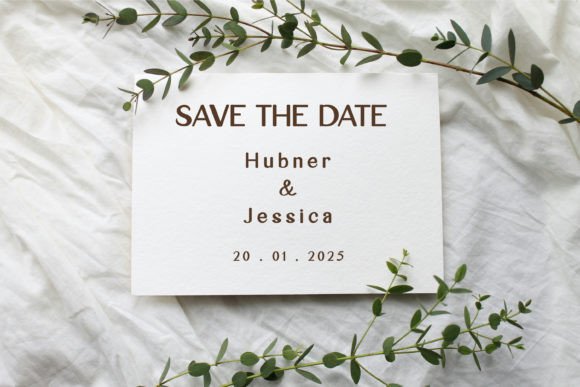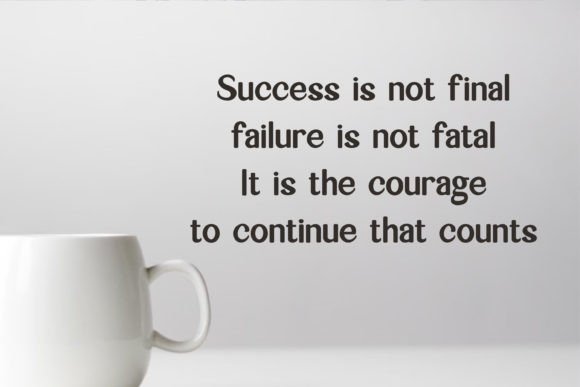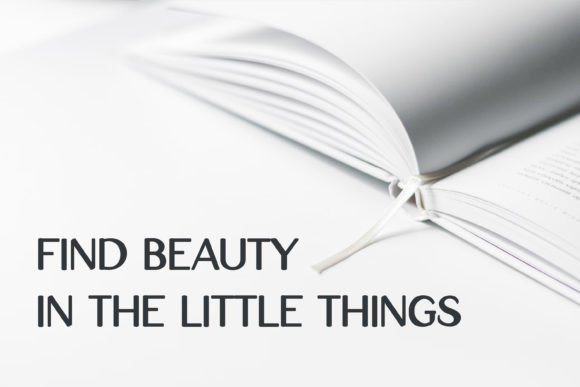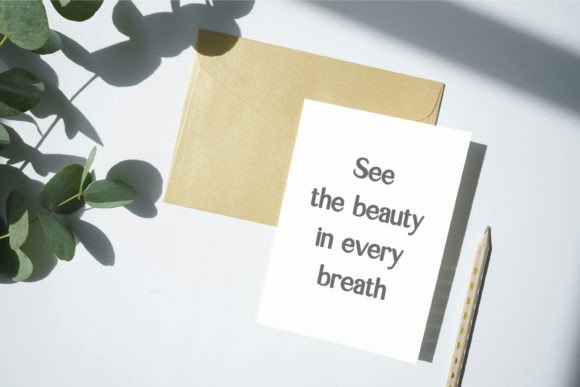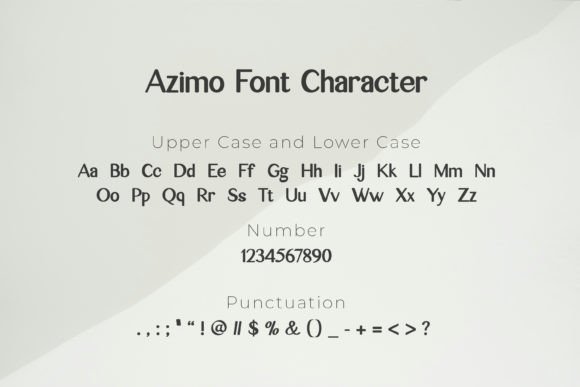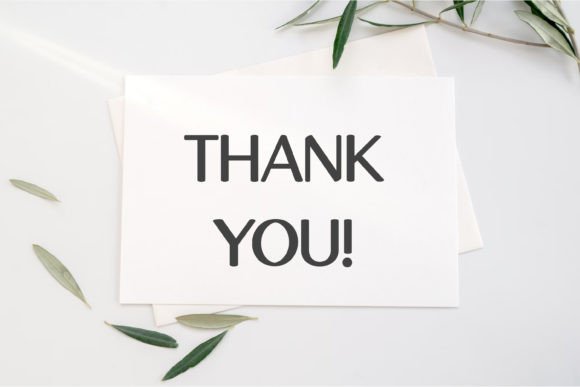
Introducing Azimo Modern Sans Font – Redefining Contemporary Typography!
In the ever-evolving world of design, typography plays a pivotal role in conveying messages, evoking emotions, and creating lasting impressions. For designers and crafters seeking to elevate their projects with a touch of modern elegance, the Azimo Modern Sans Font emerges as a game-changer. This cutting-edge typeface is meticulously crafted to bring a breath of fresh air to the realm of contemporary design, offering a sleek sophistication that is both minimalist and timeless.
The Genesis of Azimo Modern Sans Font
Azimo Modern Sans Font is the brainchild of a vision to redefine the aesthetics of modern typography. Born out of a passion for clean lines, simplicity, and versatility, Azimo is designed to cater to the needs of a wide array of projects. From branding and advertising to digital interfaces and craft projects, Azimo aims to be the go-to font for designers and crafters worldwide.
Key Features of Azimo Modern Sans Font
- Clean and Minimalist Design: Azimo boasts a clean and minimalist design that ensures clarity and readability across various mediums. Its uncluttered lines and simple shapes make it perfect for creating a strong visual impact.
- Versatility: With multiple weights and styles, Azimo offers the versatility needed to tackle a wide range of design projects. Whether you’re working on a sleek corporate brand identity or a creative craft project, Azimo adapts seamlessly.
- Modern Elegance: Azimo brings a touch of modern elegance to the table, making it ideal for designers looking to infuse their work with a contemporary feel. Its sophisticated look and feel are sure to elevate any project.
- Timeless Appeal: While being firmly rooted in modern design principles, Azimo also possesses a timeless quality. This ensures that your designs won’t become outdated, saving you from the frequent need for redesigns.
Applications of Azimo Modern Sans Font
The applications of Azimo Modern Sans Font are vast and varied. Here are a few areas where Azimo truly shines:
- Branding and Logo Design: Create memorable brand identities with Azimo’s distinctive and professional look.
- Digital and Print Advertising: Stand out in the crowded advertising space with Azimo’s clean and compelling typography.
- Web and Mobile Interfaces: Enhance user experience with Azimo’s readability and aesthetic appeal, perfect for UI/UX design.
- Craft and DIY Projects: Add a professional touch to your craft projects, from handmade cards to DIY blogs, with Azimo’s modern charm.
Why Choose Azimo Modern Sans Font?
In a sea of typefaces, Azimo Modern Sans Font stands out for several reasons:
- Unique yet Familiar: Azimo strikes the perfect balance between uniqueness and familiarity, making your designs both distinctive and approachable.
- Highly Legible: Its design prioritizes legibility, ensuring your message is conveyed clearly and effectively.
- Easy to Pair: Azimo’s versatility extends to its pairing capabilities, easily complementing other typefaces to create harmonious design pieces.
Azimo Modern Sans Font is more than just a typeface; it’s a design companion that empowers you to create with clarity, elegance, and sophistication. Whether you’re a seasoned design professional or a passionate craft enthusiast, Azimo offers the tools to bring your creative visions to life. Embrace the future of typography with Azimo, and discover a world where modern design meets timeless appeal.
Unlock the potential of your designs with Azimo Modern Sans Font. Experience the blend of modernity and sophistication that is set to redefine contemporary typography.